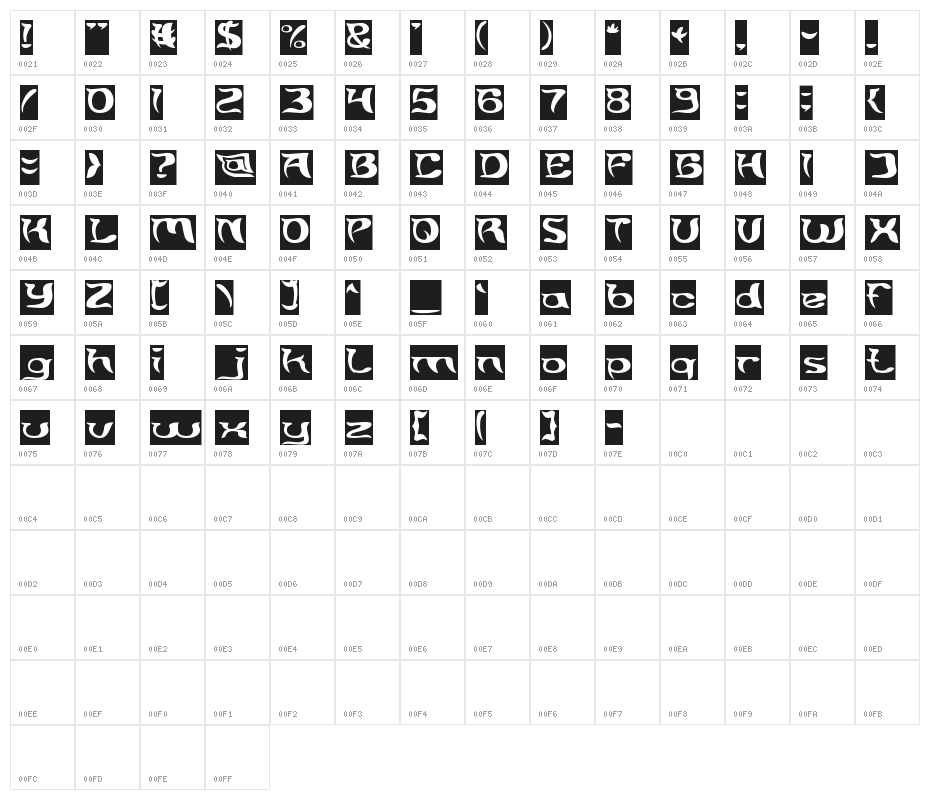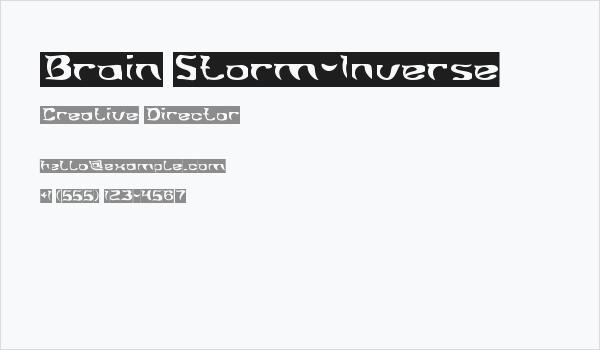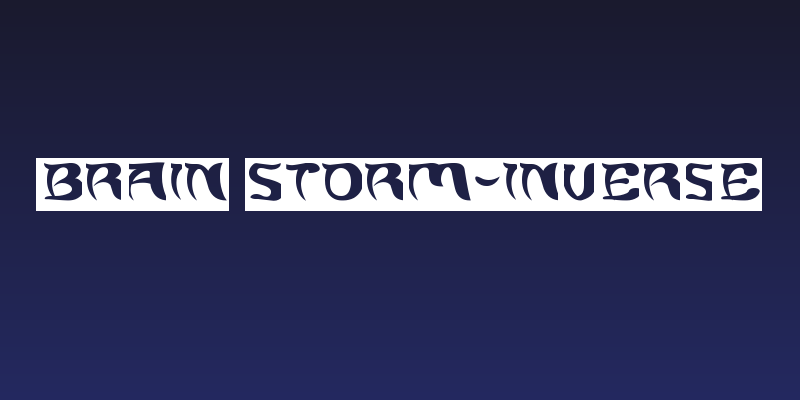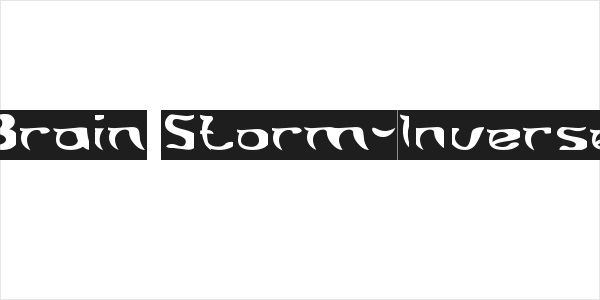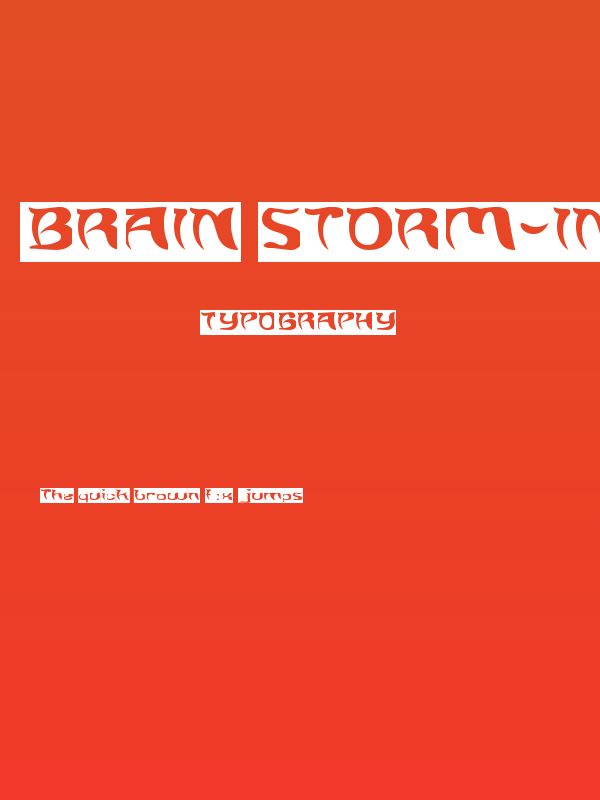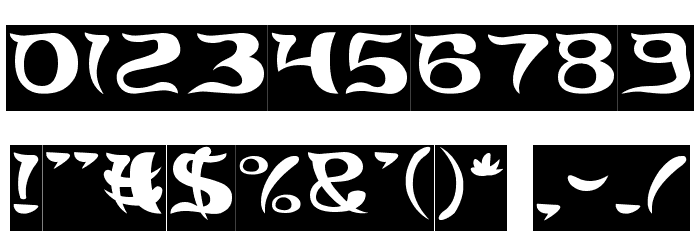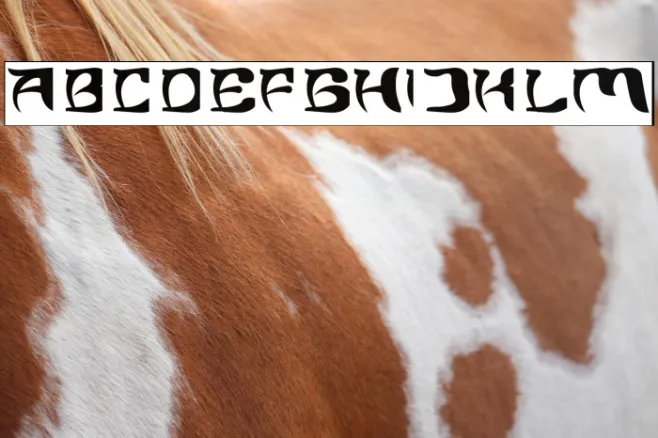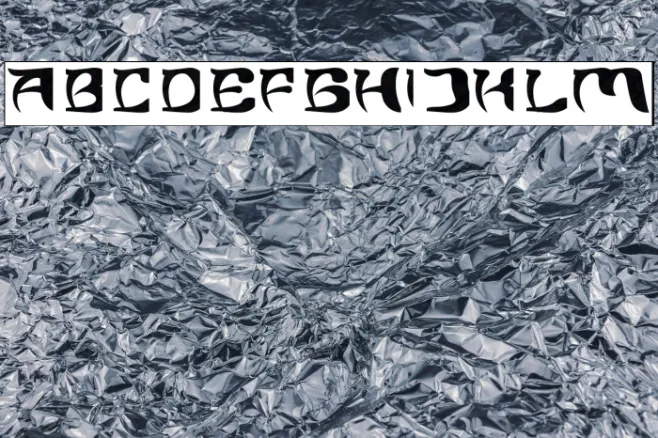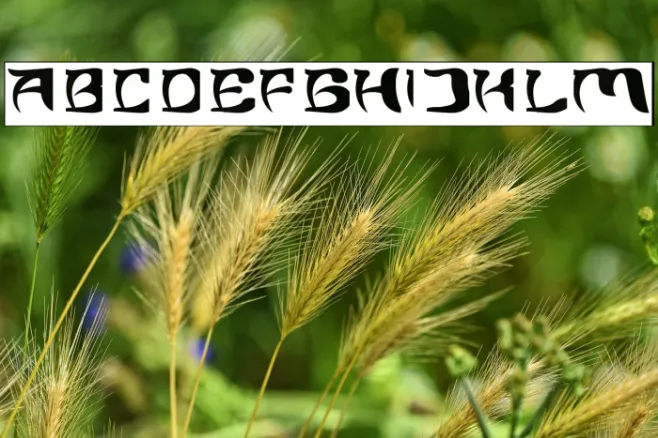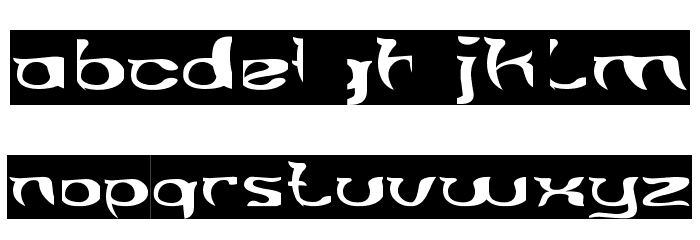
Brain Storm-Inverse Font
Brain Storm-Inverse Description
This font features a bold and dynamic style with a unique, artistic flair. Each character is crafted with sharp, angular edges and a slightly distorted appearance, giving it a hand-drawn, graffiti-like aesthetic. The uppercase letters are particularly striking, with exaggerated curves and pointed terminals that create a sense of movement and energy. The lowercase letters maintain this dynamic quality, though they are slightly more subdued. Numbers and special characters follow the same design principles, ensuring consistency across the font. The overall effect is both modern and edgy, making it suitable for projects that require a bold statement.
| Overall Style | Modern, Edgy |
| Proposed Projects | Ideal for album covers, street art-inspired designs, posters, and branding that requires a bold, artistic touch. |